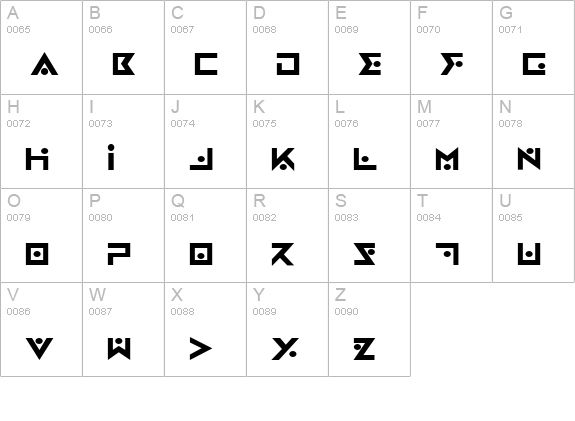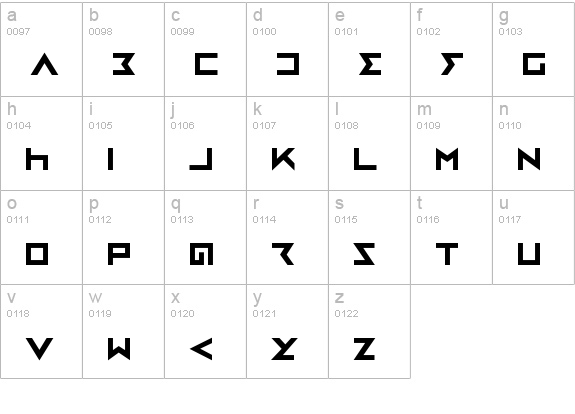
Iron Cobra Bold is a strong, high-contrast variant in the Iron typeface family \xE2\x80\x94 well suited to headlines, attention-grabbing titles, and strong calls-to-action.
Iron Cobra Bold font exudes strength and boldness with its sharp edges and powerful presence. This modern and impactful typeface commands attention and is perfect for headlines, logos, and branding projects that require a strong visual impact. The thick strokes and clean lines of Iron Cobra Bold make it easy to read and highly versatile for a variety of design applications. Whether used for posters, packaging, or digital designs, this font adds a touch of sophistication and professionalism to any project. Best of all, Iron Cobra Bold is available for free download at FontsMarket.com. This means you can easily access and use this impressive font in your designs without any cost. Don't miss out on the opportunity to enhance your projects with the bold and commanding style of Iron Cobra Bold font. Download it today and make a bold statement with your design work.